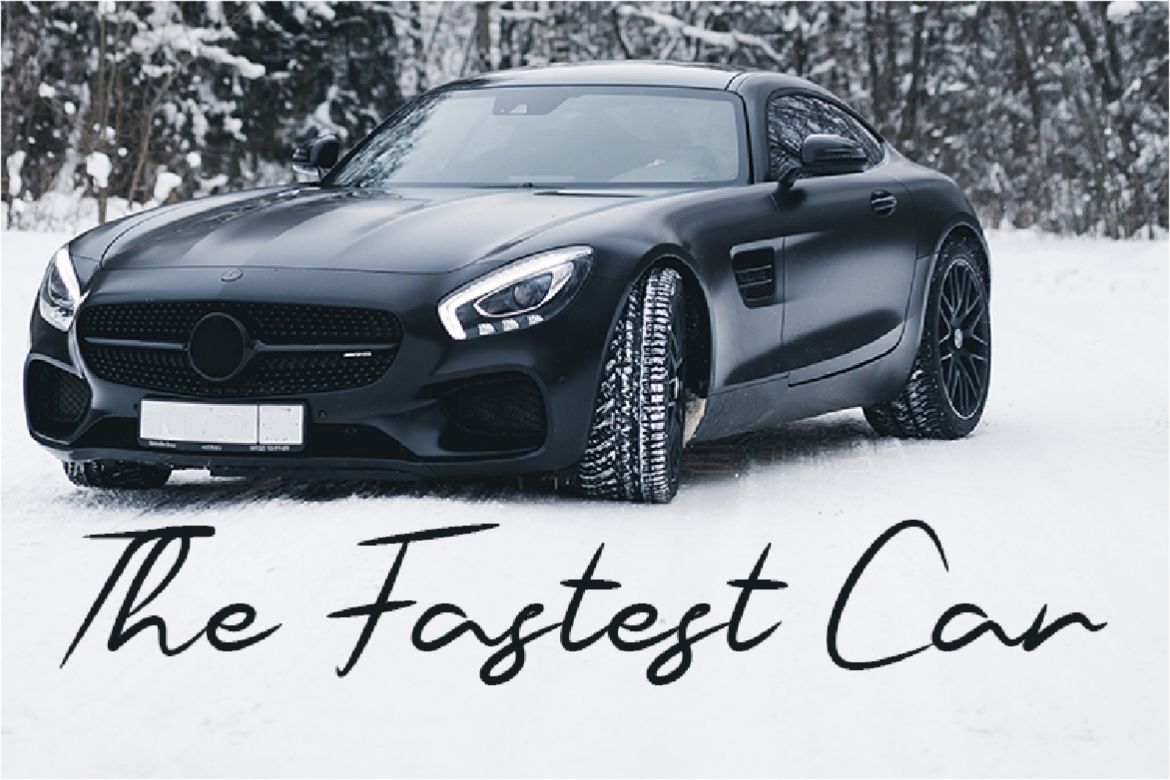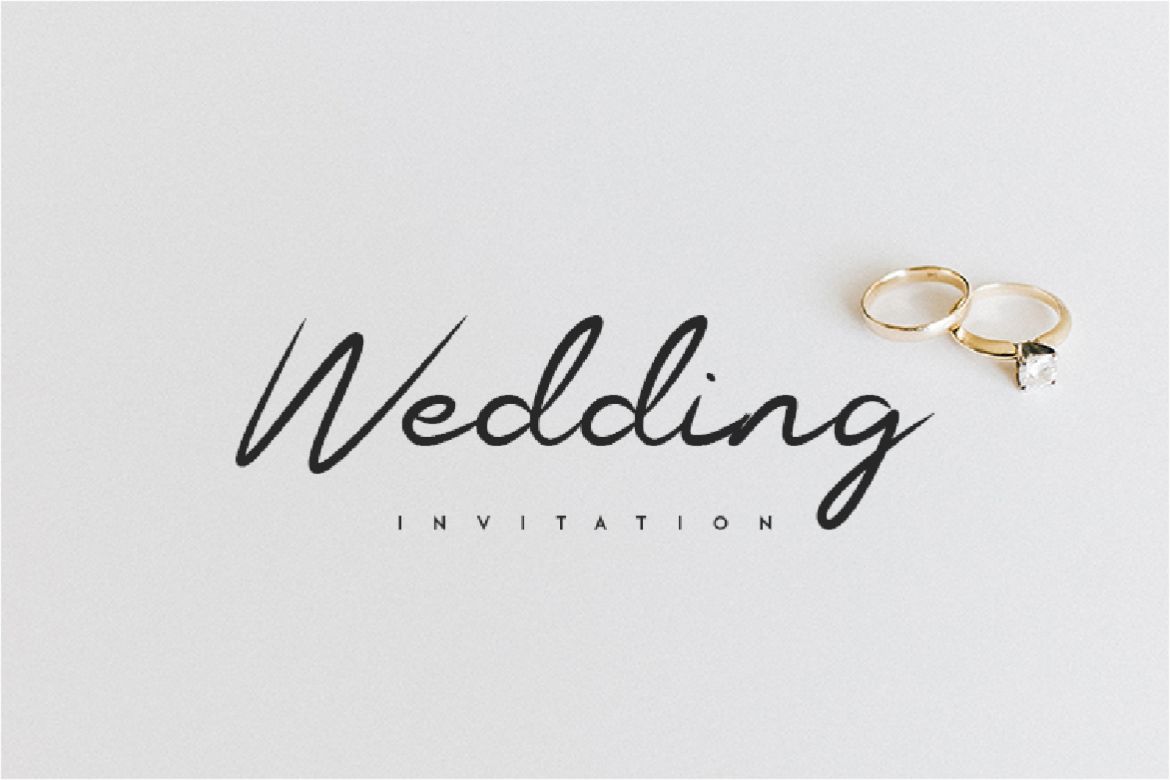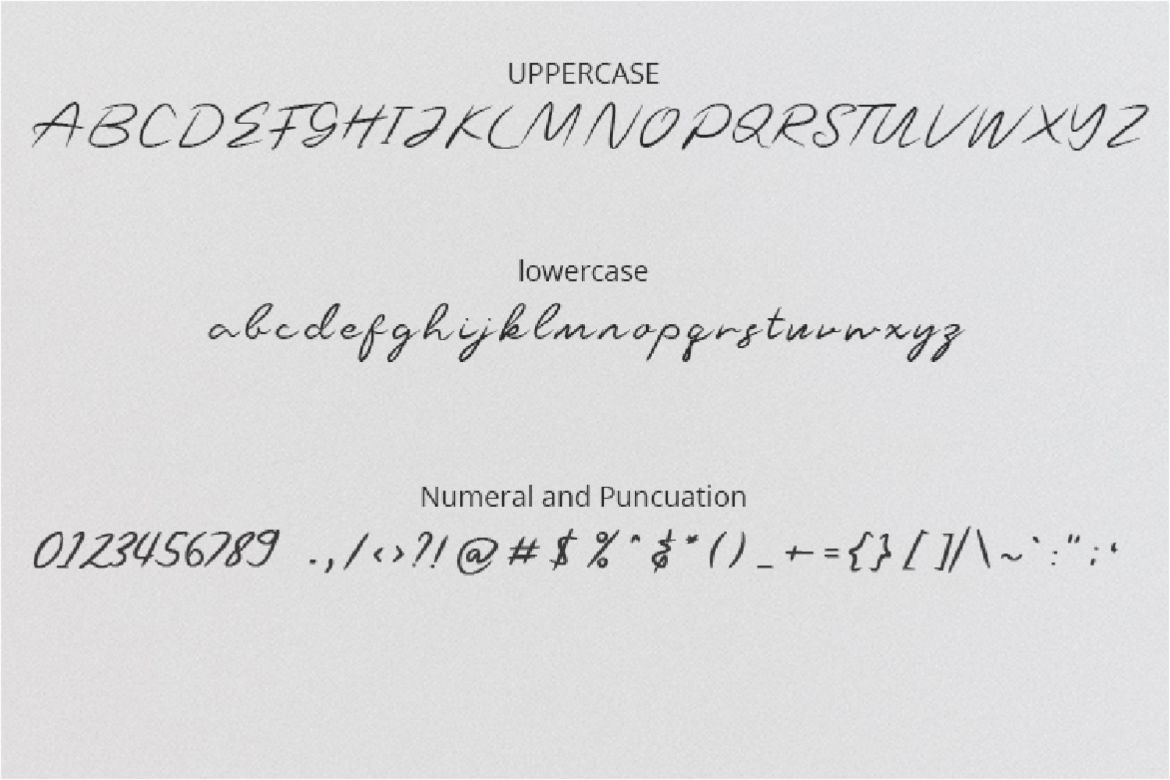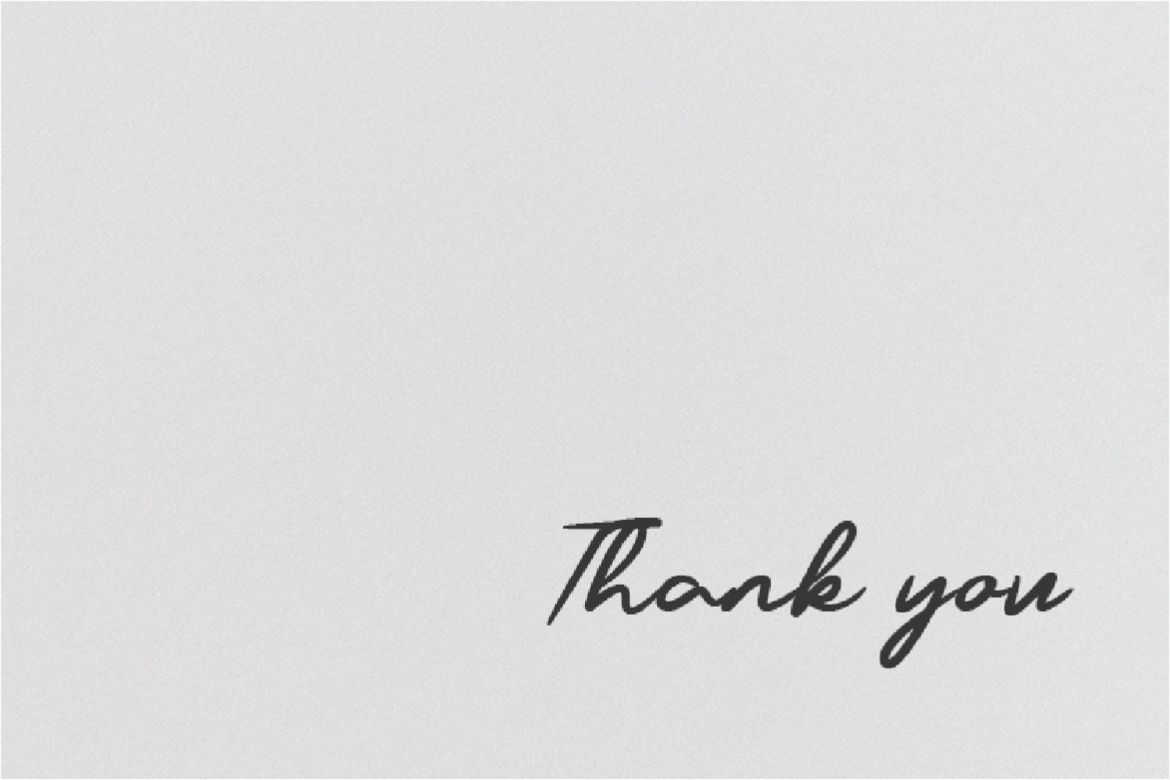
Raceer - Handwritten Font
Raceer is quick handwritten font. Raceer is perfect for your all design project such as wedding design, invitation, recer poster, handwritting, typography design, simple flyer design, simpel magazine cover, etc.